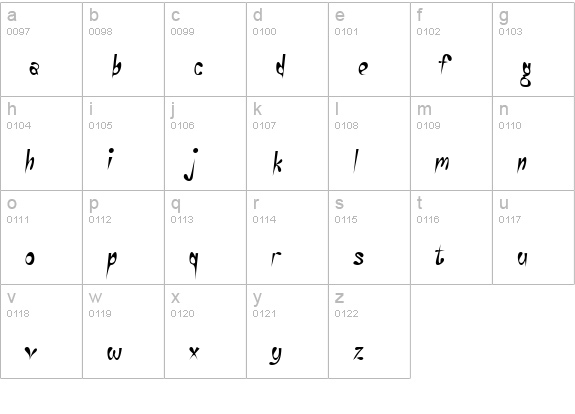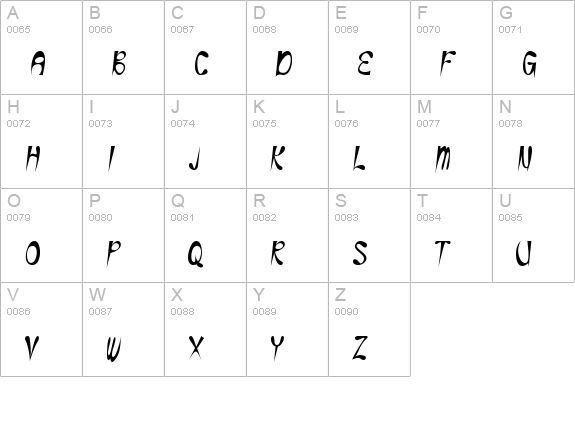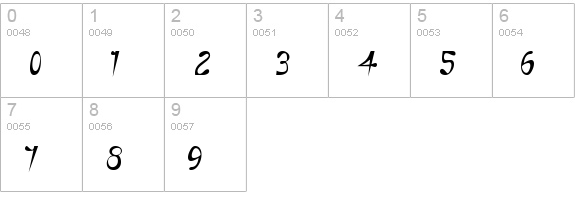
Eye Rhyme Font Details
Eye Rhyme font is a visually striking typeface that combines elegance with a touch of whimsy. Its unique design features intricate details and playful elements that create a sense of harmony and balance on the page. The fluid curves and sharp edges of this font give it a modern yet sophisticated look, making it suitable for a wide range of design projects. Eye Rhyme font is the perfect choice for those looking to add a touch of personality and flair to their work. Whether you're designing a logo, creating a poster, or crafting a website, this font will make your text stand out and leave a lasting impression on your audience. Best of all, Eye Rhyme font is available for free download at FontsMarket.com. So, you can easily access this beautiful typeface and start using it in your projects right away. Don't miss out on the opportunity to enhance your designs with the eye-catching charm of Eye Rhyme font.